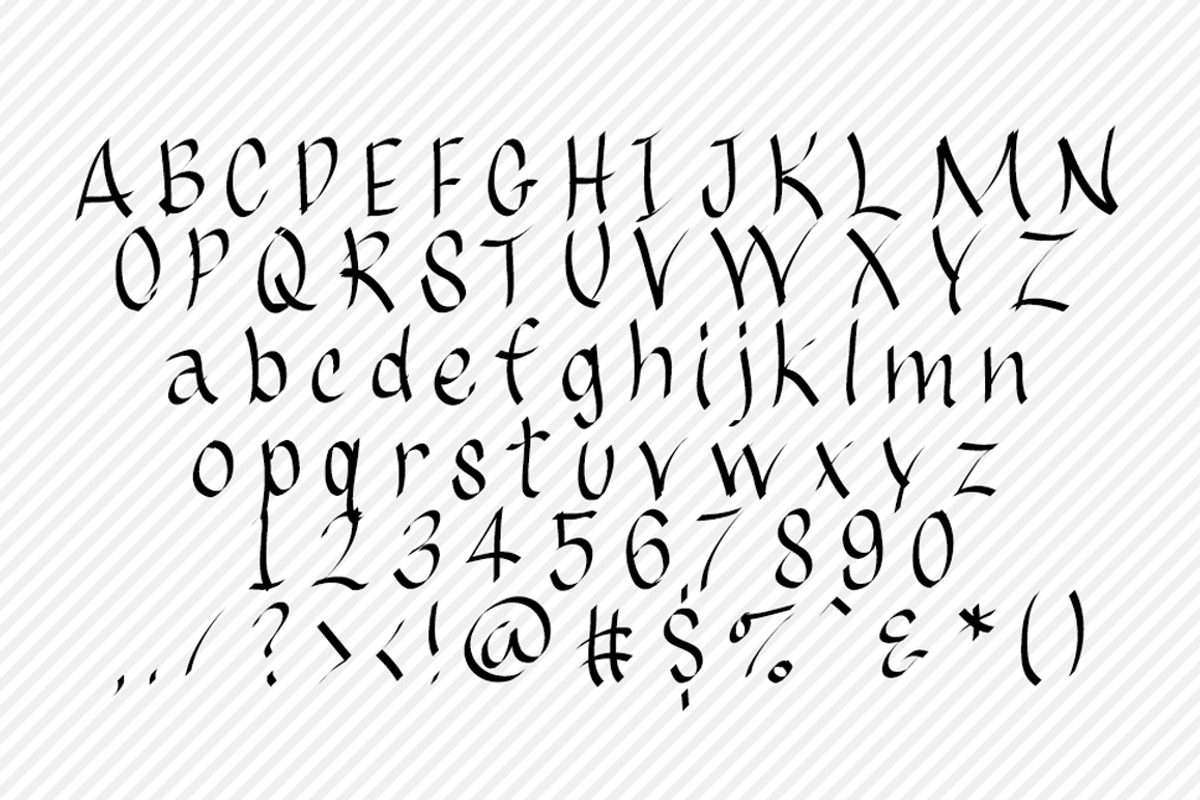
Brushed Hand Drawn Font
Brushed Hand Drawn Font by Polka Dot Pixels is a font selected for branding, posters, packaging, typography.
- upper and lowercase letters, numbers and punctuation included.
Brushed Hand Drawn Font by Polka Dot Pixels fits naturally into Branding, posters, packaging, typography.